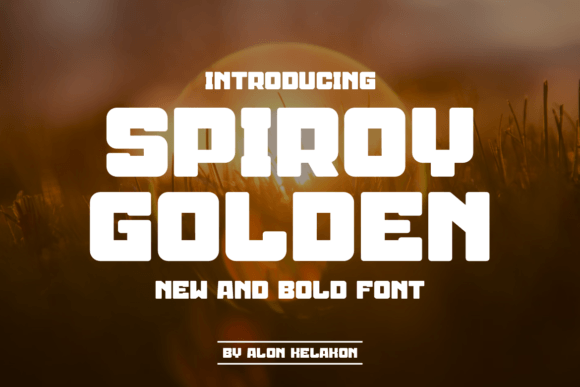
Step into the world of Spiroy Golden Font, a captivating sans serif font that exudes boldness and thickness. This remarkable creation by alonkelakon is a feast for the eyes, sure to add a touch of playfulness and fun to all your designs. With Spiroy Golden, your branding and packaging projects will radiate with an irresistible charm that will capture hearts.
Embrace the uniqueness of Spiroy Golden, a font crafted with a perfect balance of amusement and inventiveness. Its chubby nature emanates a sense of warmth and approachability that will instantly captivate your audience. Unleash the power of Spiroy Golden to make a lasting impression, leaving them yearning for more.
Dive into a world of endless possibilities with Spiroy Golden, a font that seamlessly blends style and functionality. Its versatility shines through, making it an ideal choice for a diverse range of projects, from eye-catching logos and posters to vibrant social media graphics and website designs. Let Spiroy Golden elevate your creations, adding a touch of magic to every stroke.